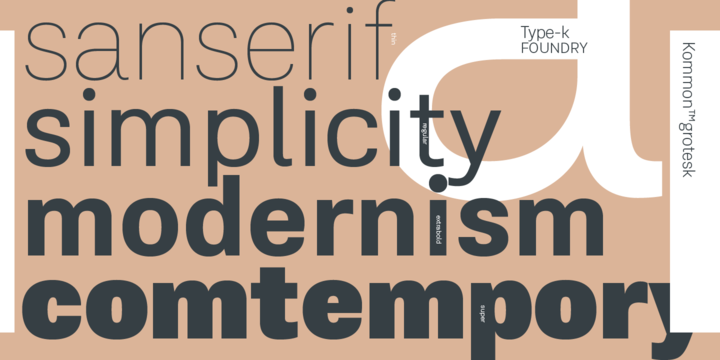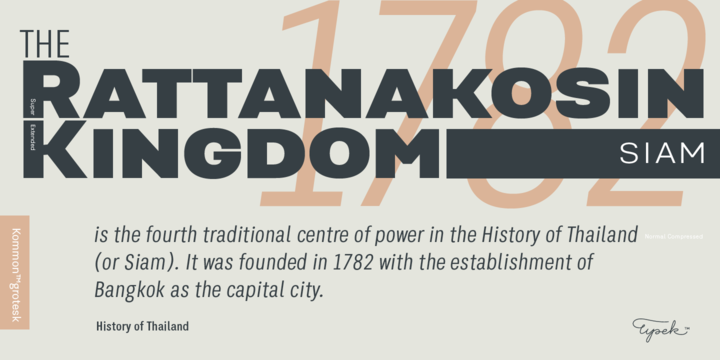
Kommon Grotesk Font Family
About this font family
Introducing our foundry with the new Sans Serif typeface, Kommon™Grotesk, a super family with 96 styles. Different width from Extended to Compressed, variety of weights from Thin to Super, made Kommon™Grotesk suitable for multiple usage. The typeface was crafted till clean and simple. It has high legibility with modern and clear look to be use as text or display font.